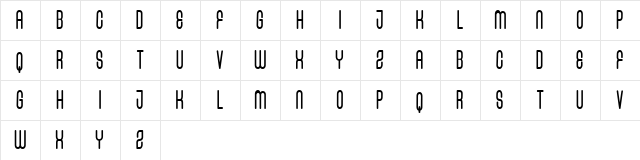
FRESH BERRIES SANS FREE Regular
Design Context for FRESH BERRIES SANS FREE Typeface
FRESH BERRIES SANS FREE offers clean, dependable letterforms without strong stylistic allegiance, making it a practical choice for designers who need flexibility.
Pro Tip: Pair FRESH BERRIES SANS FREE with a font of contrasting weight or personality to build a more expressive typographic hierarchy.